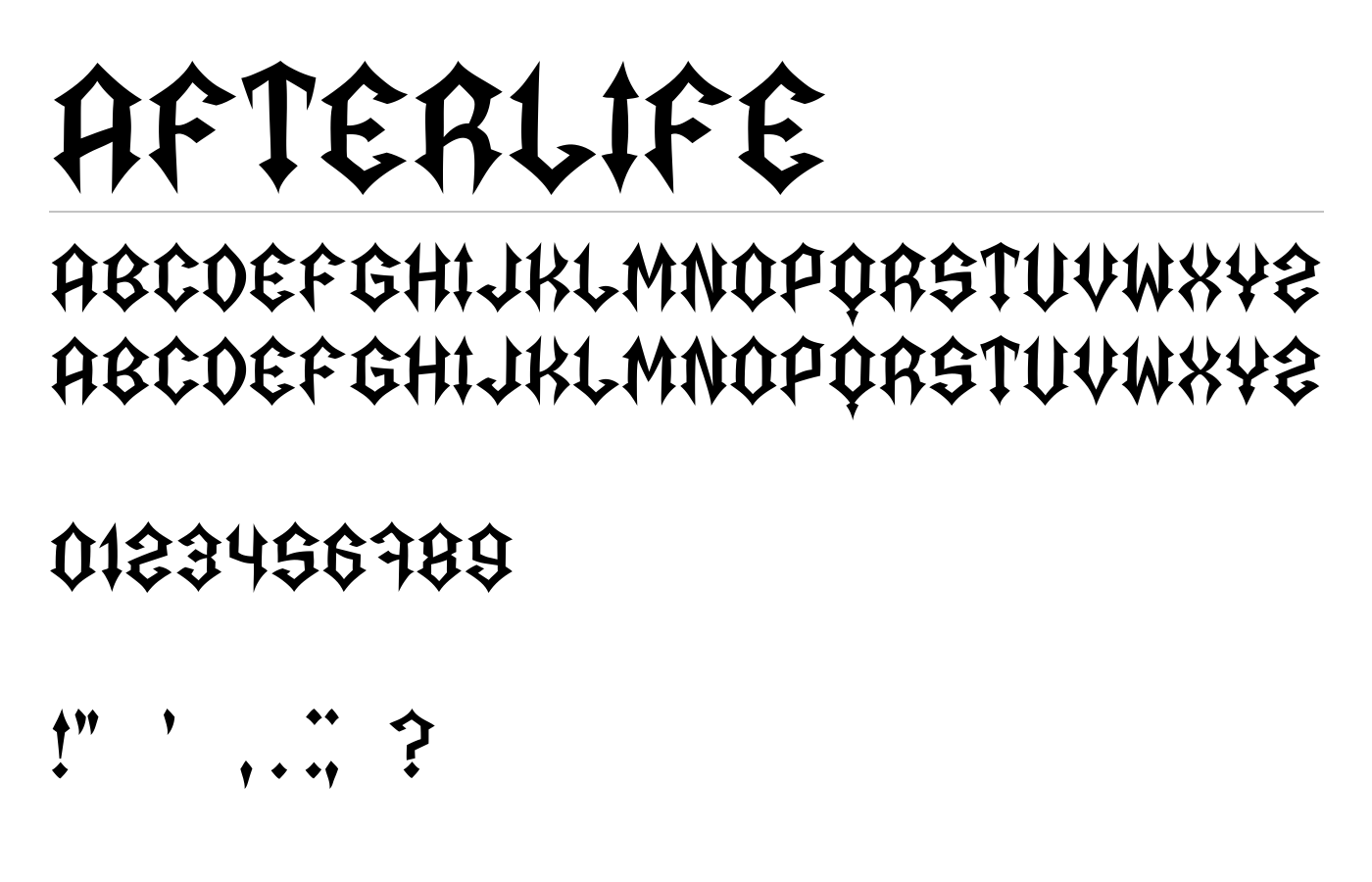
Afterlife is a bold, blackletter-inspired display font with sharp, geometric serifs and a dramatic Gothic style that commands attention. Its heavy weight and intricate, pointed details make it perfect for edgy branding, posters, or headlines looking to convey a dark, mysterious, or rebellious mood. This font works best where striking visual impact is needed rather than for body text, capturing a unique blend of vintage tradition and modern attitude.
Afterlife Font
About Afterlife Font